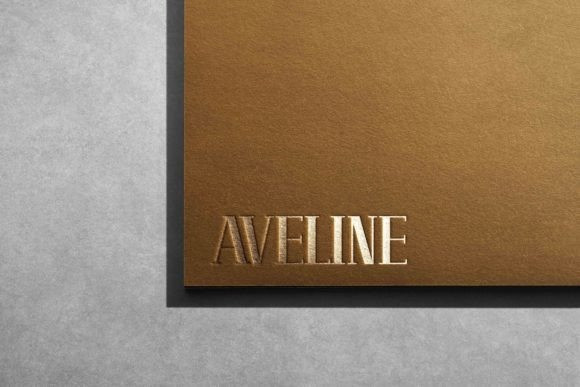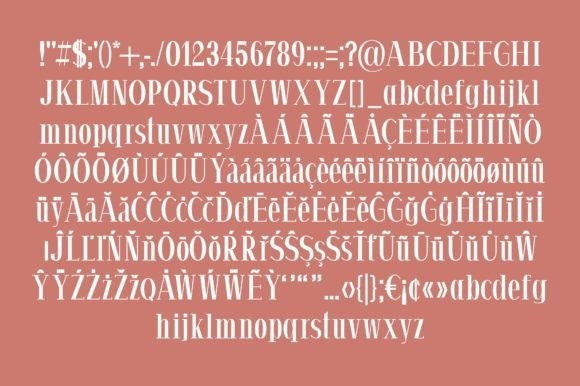
Aveline Serif Font
Aveline Serif Font is a feminine elegant typeface designed keeping in mind the scope of obtaining the maximum luxurious aspect that a glyph can give throughout constructing delicate glyphs and high contrast inside each Skelton of them. It can be wonderfully used for packaging design, fashion design-related themes, fragrance design, cosmetics design, social posts, etc. Use it confidently in your creation and you will notice the awesome results that can be easily gained.